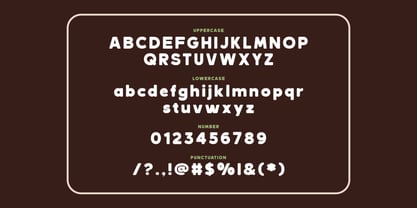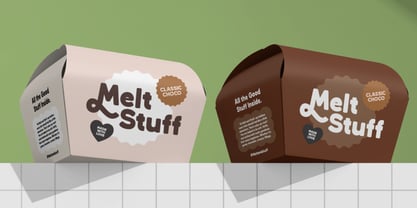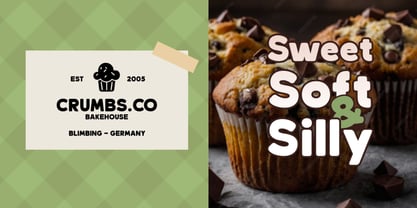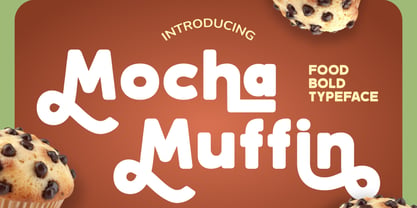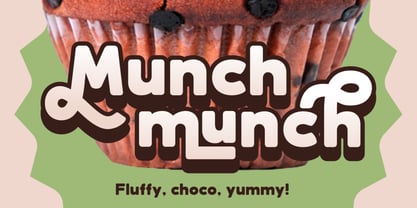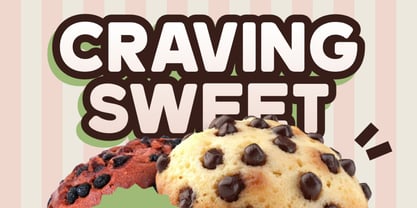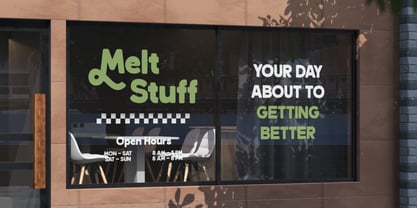
Mocha Muffin
The Mocha Muffin Font Family was designed by Fajar Indra and published by Rasio Studio. Mocha Muffin contains 1 styles. More about this family
Mocha Muffin is a bold and deliciously fun display font crafted for food-related branding and creative packaging. With its chunky curves, bubbly shapes, and unique looped terminals on select letters, this typeface adds a sweet and whimsical touch to any design. Whether you're designing bakery signage, dessert menus, snack packaging, or social media promos, Mocha Muffin serves up visual flavor that grabs attention. The font includes uppercase and lowercase characters, numerals, and punctuation, making it perfect for both print and digital use. Relevance and Use Cases is perfect for bakery packaging, dessert and snack logos, sweet product labels, food delivery branding, kids menu design, food truck signage, chocolate and candy branding, recipe books, food influencer content, pop-up café posters, restaurant marketing materials, cheerful editorial headlines